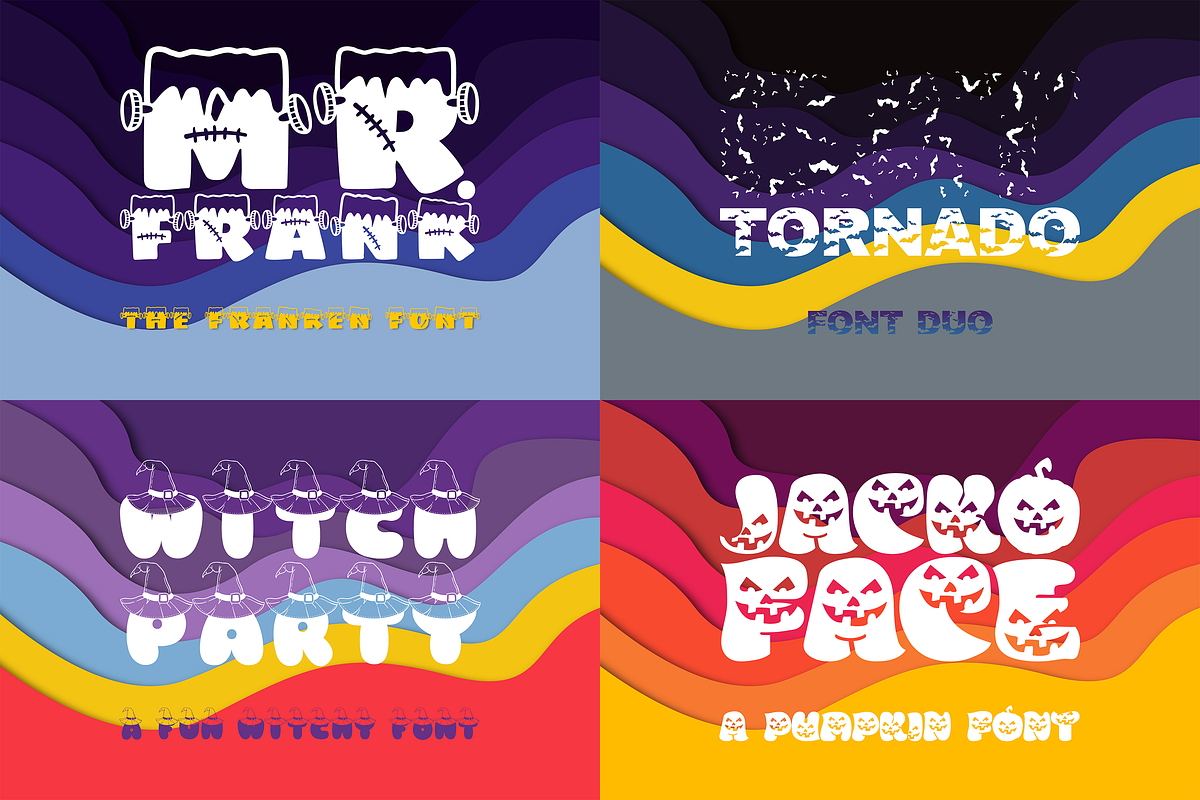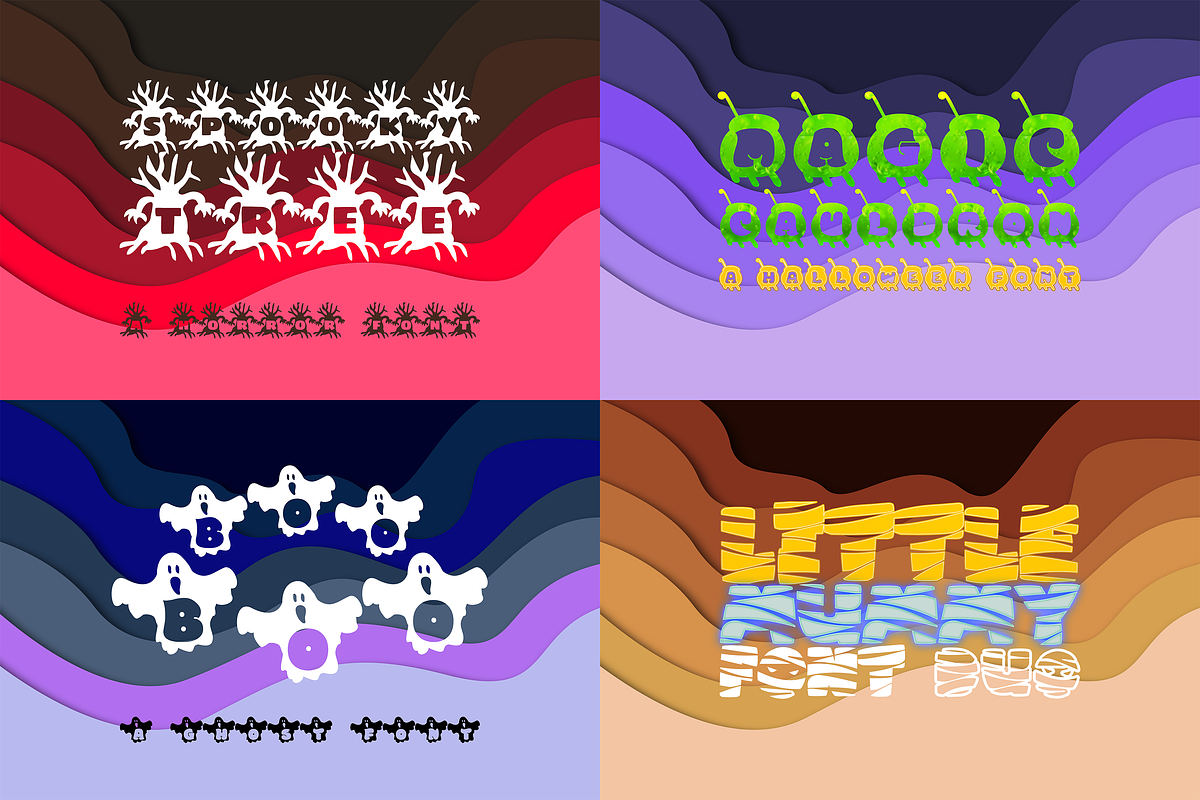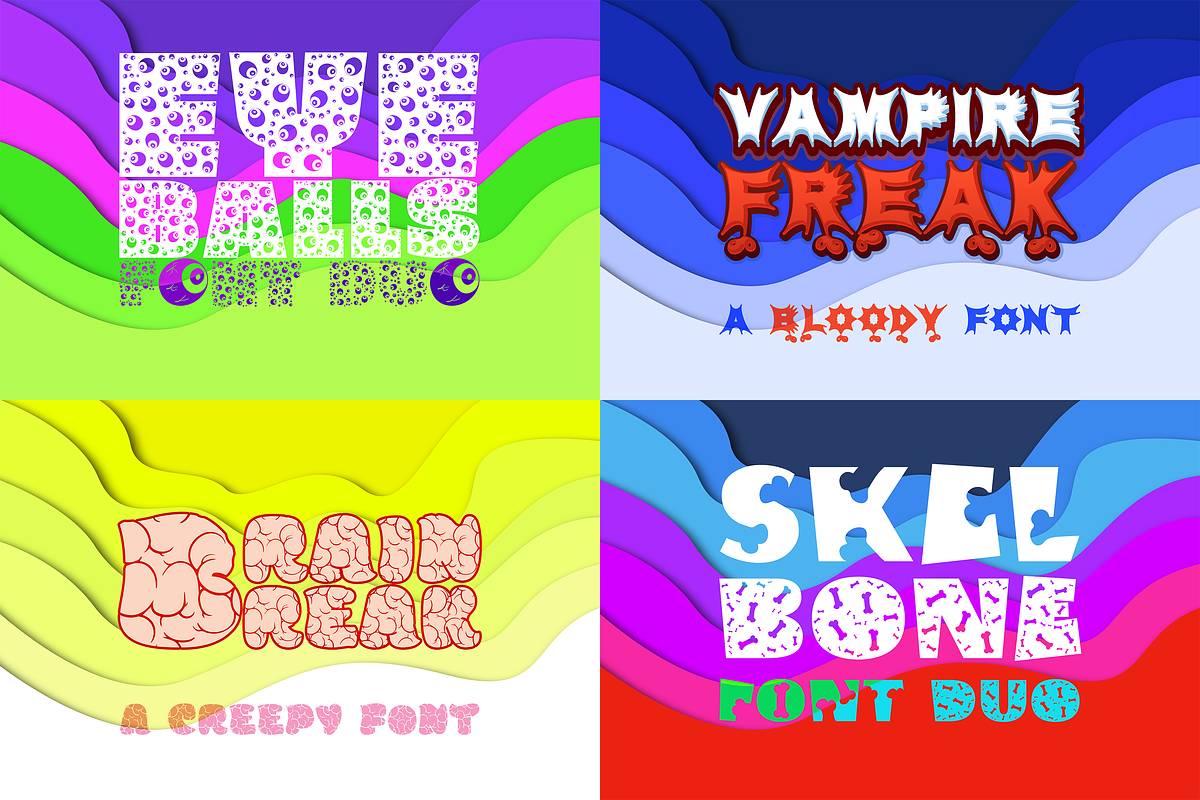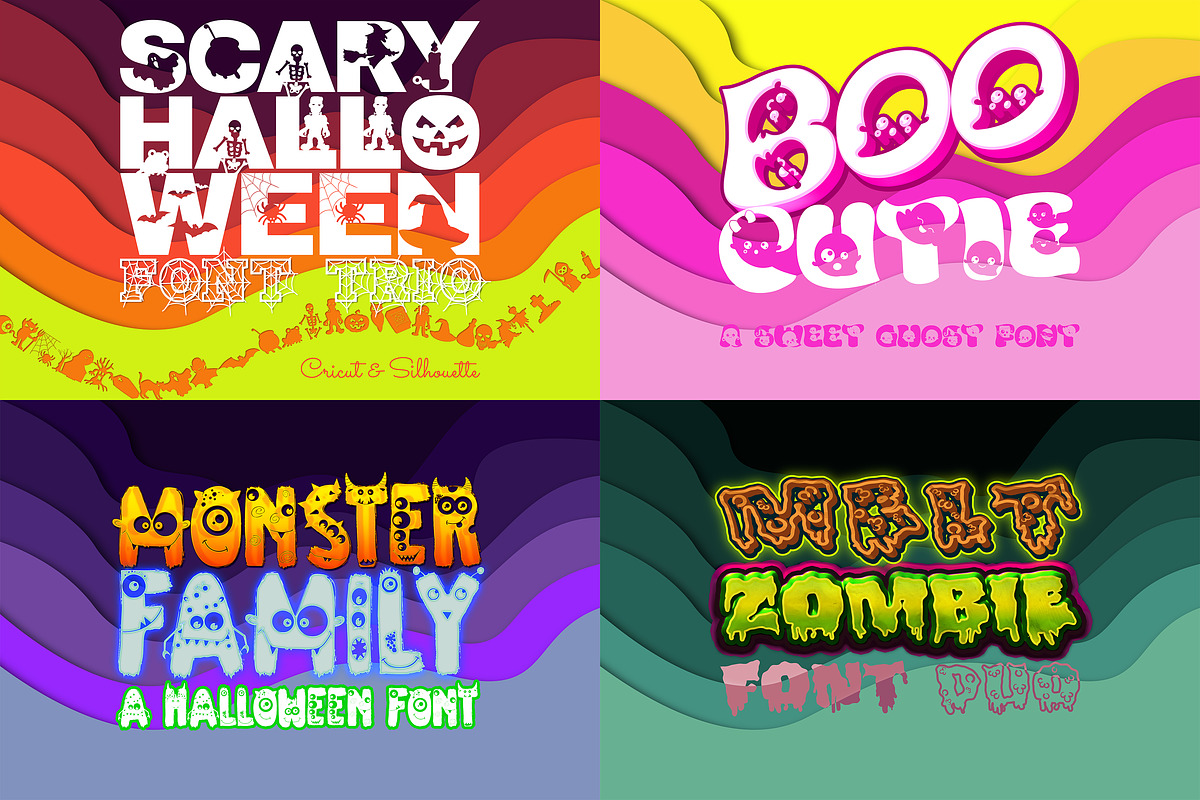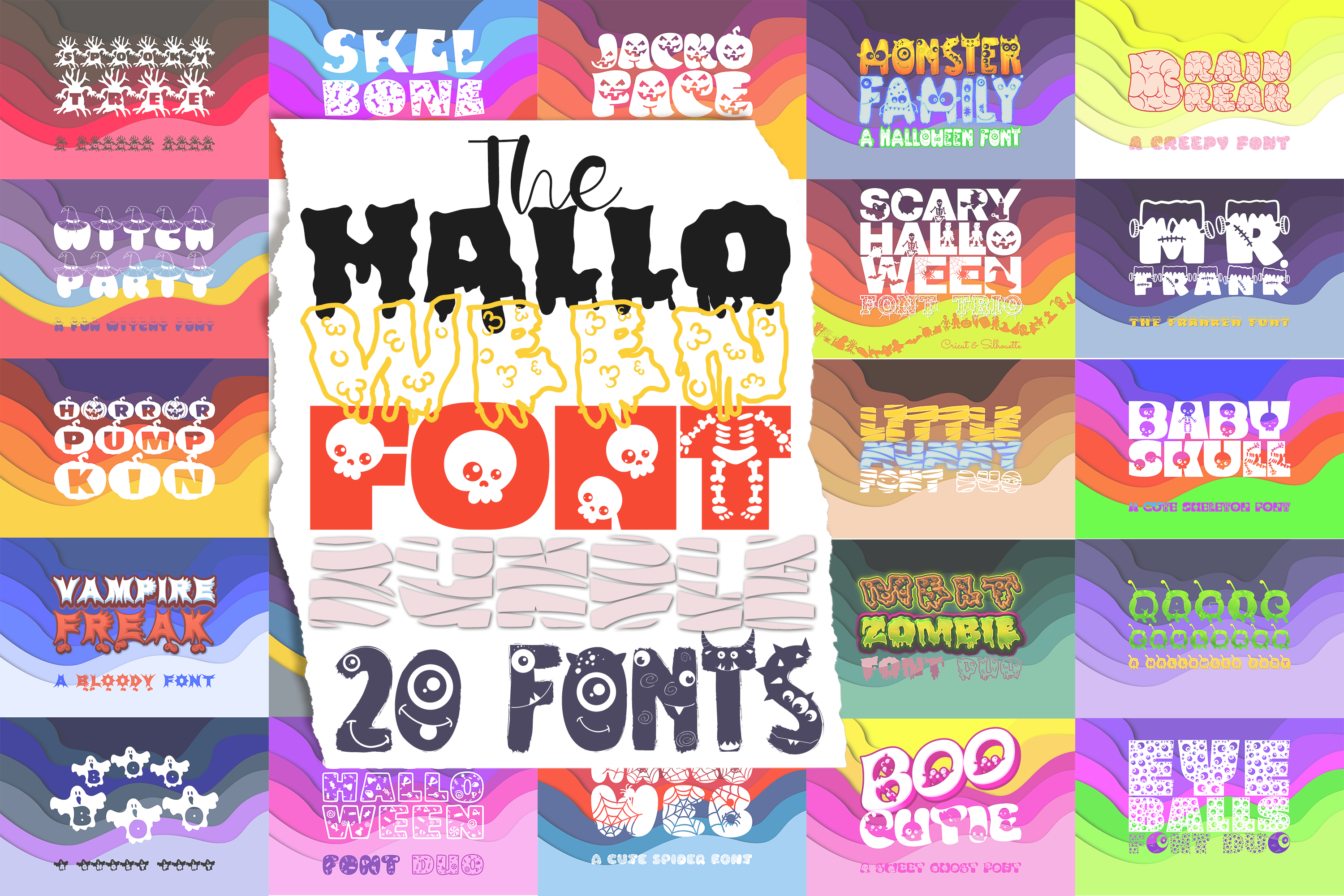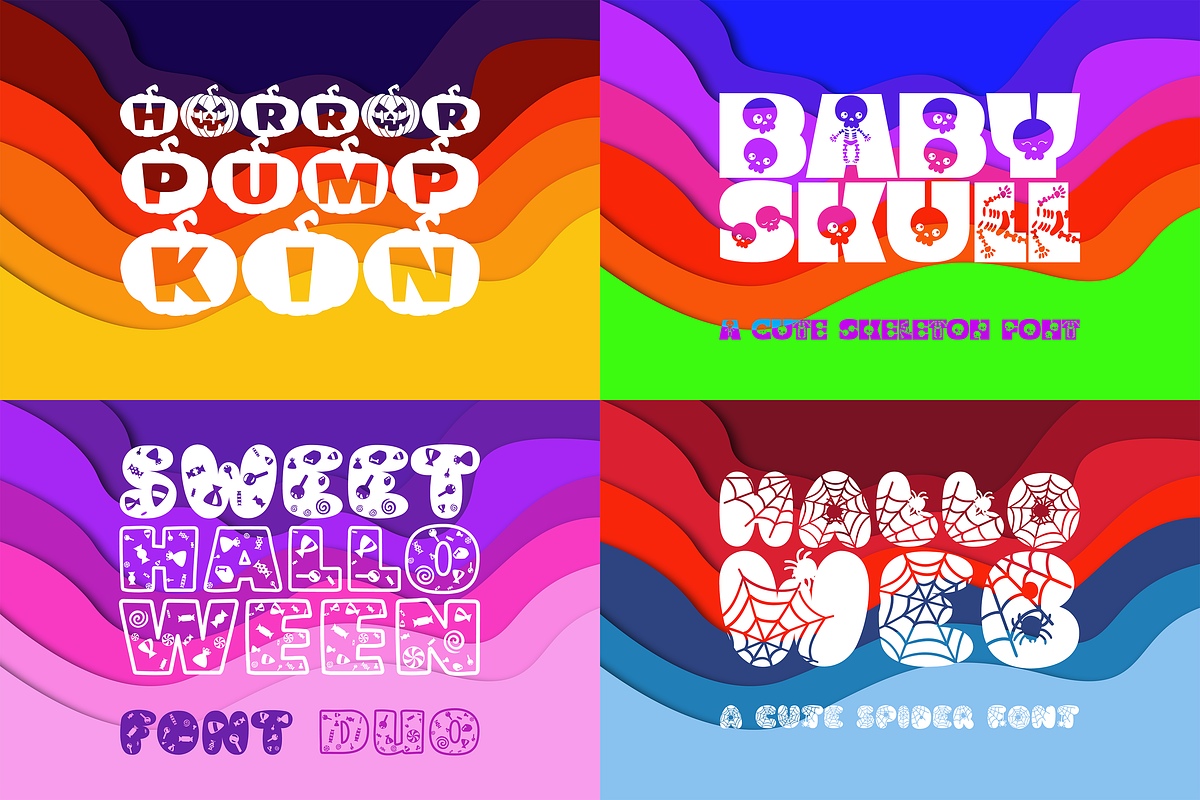
The Halloween Font Bundle
The Halloween Font Bundle is here with an incredible selection of 20 fonts. This bundle has a wide range of Halloween fonts such as Monster, Skull, Boo, Mummy, Zombie, Vampire, Candy, Witch, Skeleton, Frankenstein, Pumpkin, Spider, Eyeballs, Brain, Bat, Spooky, Scary.
The Halloween Font Bundle is perfectly suited for Quotes, Branding, Logos, Greeting Cards, Invitations, Stationery Design, Children's designs, T-shirts, Packaging designs, Posters, Typographic designs, Papercrafts, Digital crafts, and so much more!
Fonts Included:
- Scary Halloween Trio
- Bat Tornado Duo
- Boo Boo
- Brain Break
- Eye Balls Duo
- Hallo Web
- Horror Pumpkin
- Jacko Face
- Mr. Frank
- Skel Bone Duo
- Spooky Tree
- Witch Party
- Magic Cauldron
- Sweet Halloween Duo
- Vampire Freak
- Melt Zombie Duo
- Little Mummy Duo
- Monster Family
- Baby Skull
- Boo Cutie